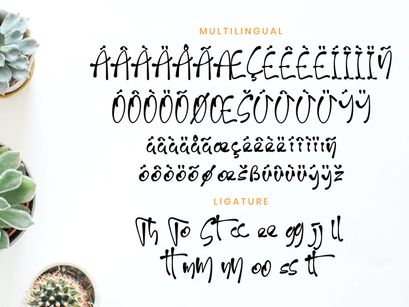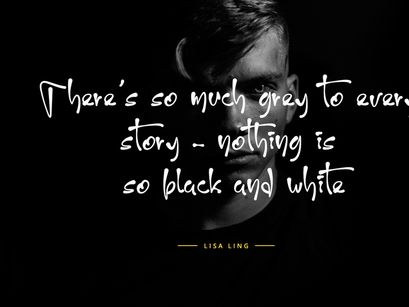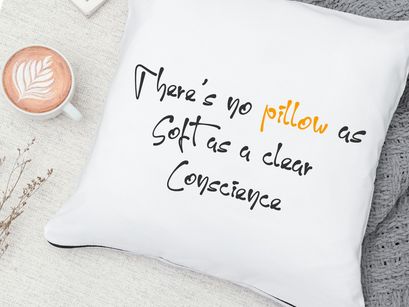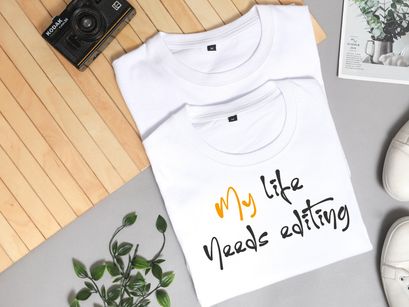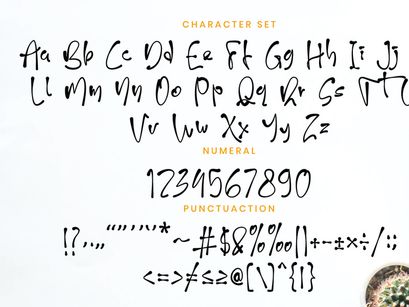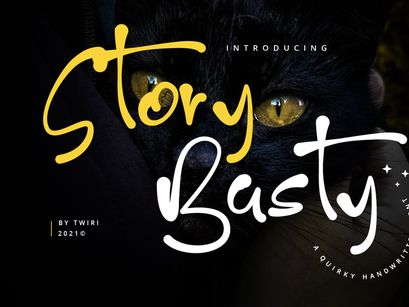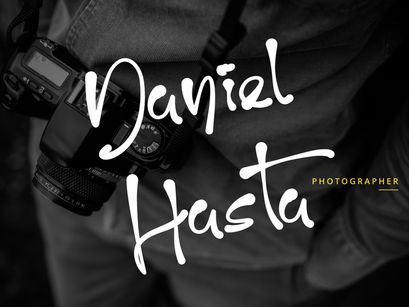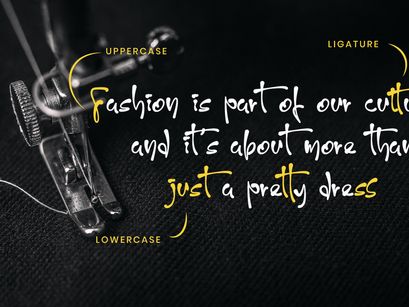
Story Basty Quirky Handwritten FontPremium
Story Basty Quirky Handwritten Font
Story Basty Quirky Handwritten Font is perfect for label, photography, watermark, invitation, stationery, branding projects, logo, wedding designs, social media posts, advertisements, product packaging, product designs, digital marketing, video.
Osnabrug fonts includes a complete set of uppercase and lowercase letters, as well as multi-language support, numbers, punctuation, ligatures